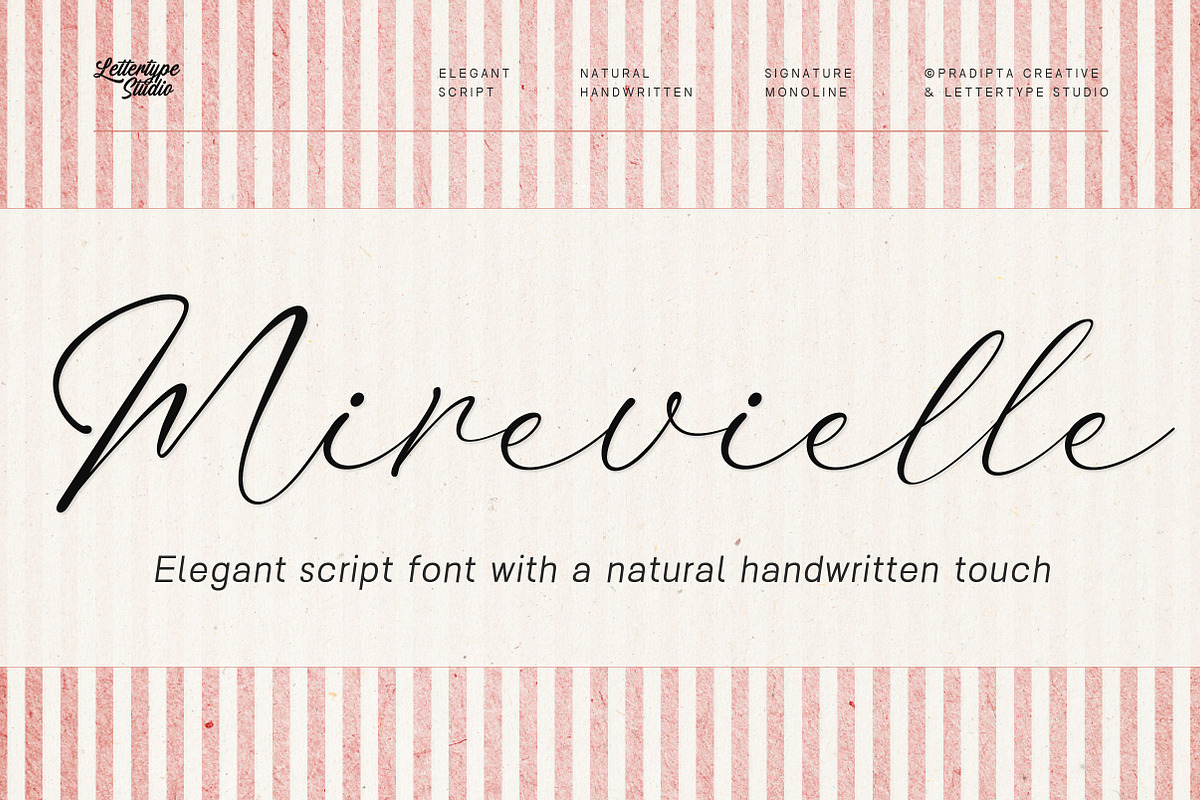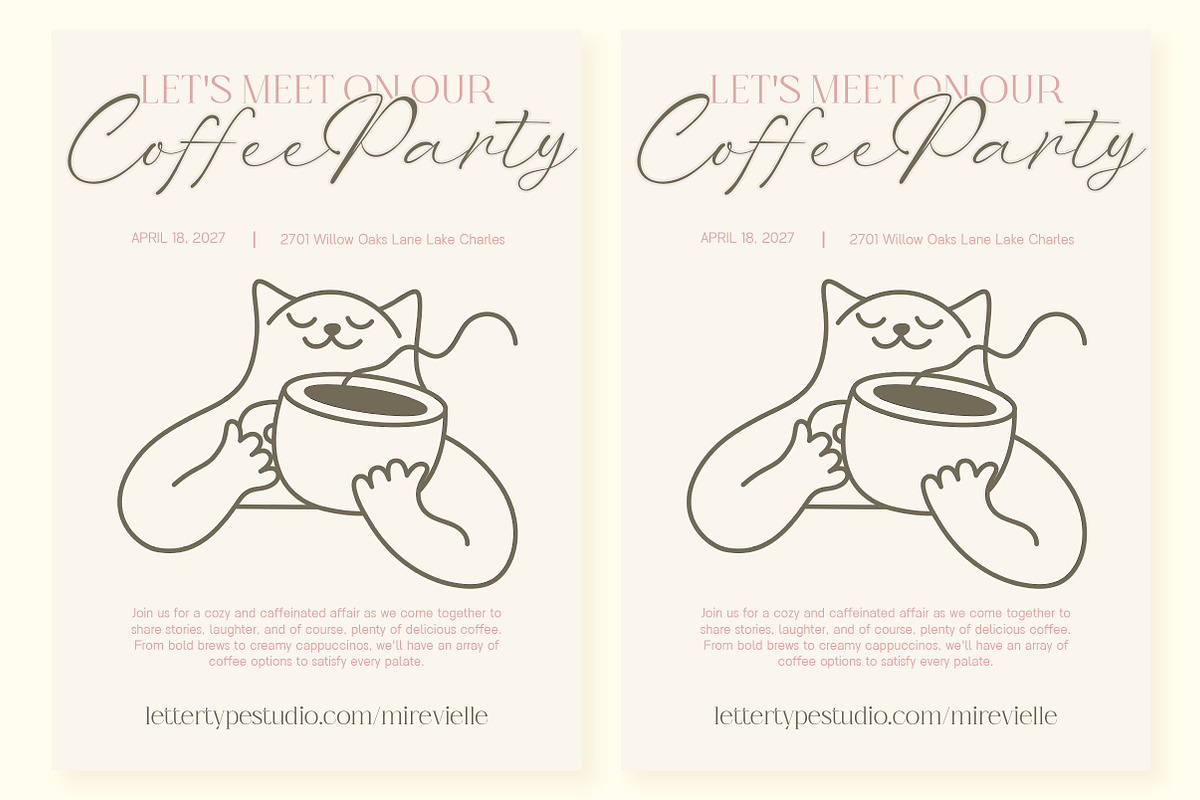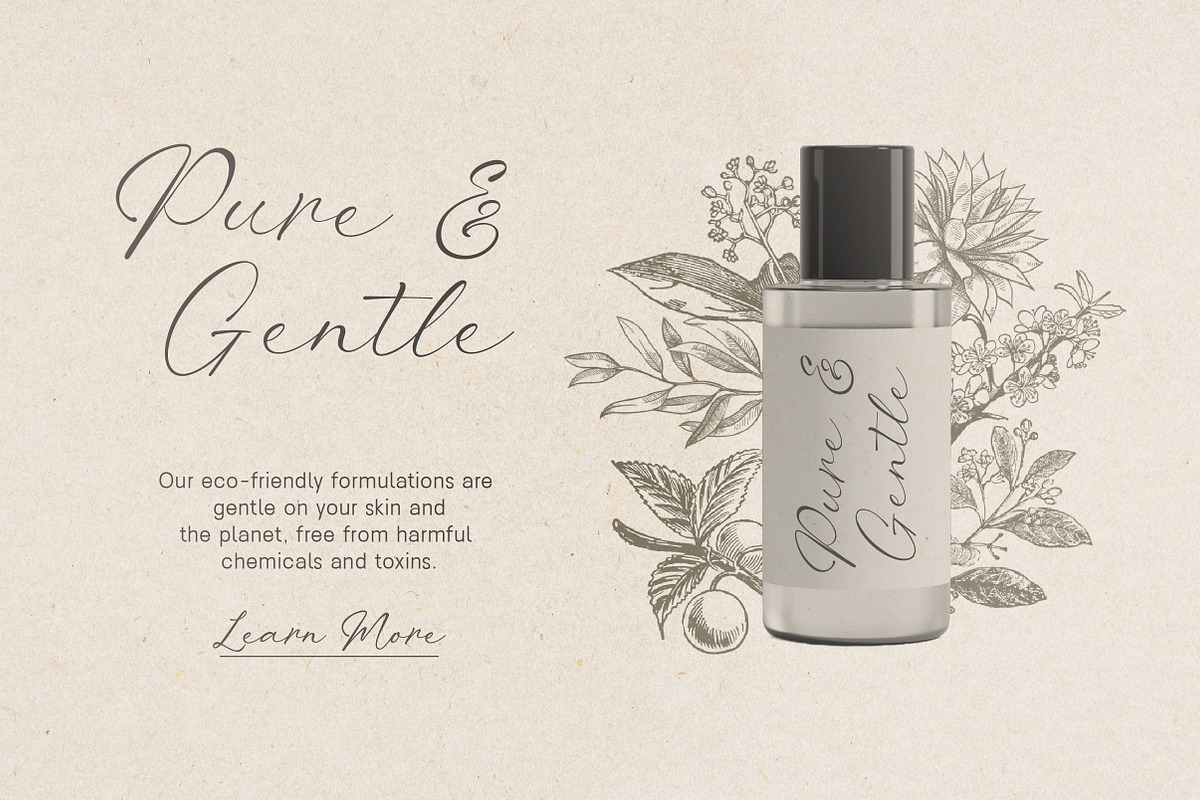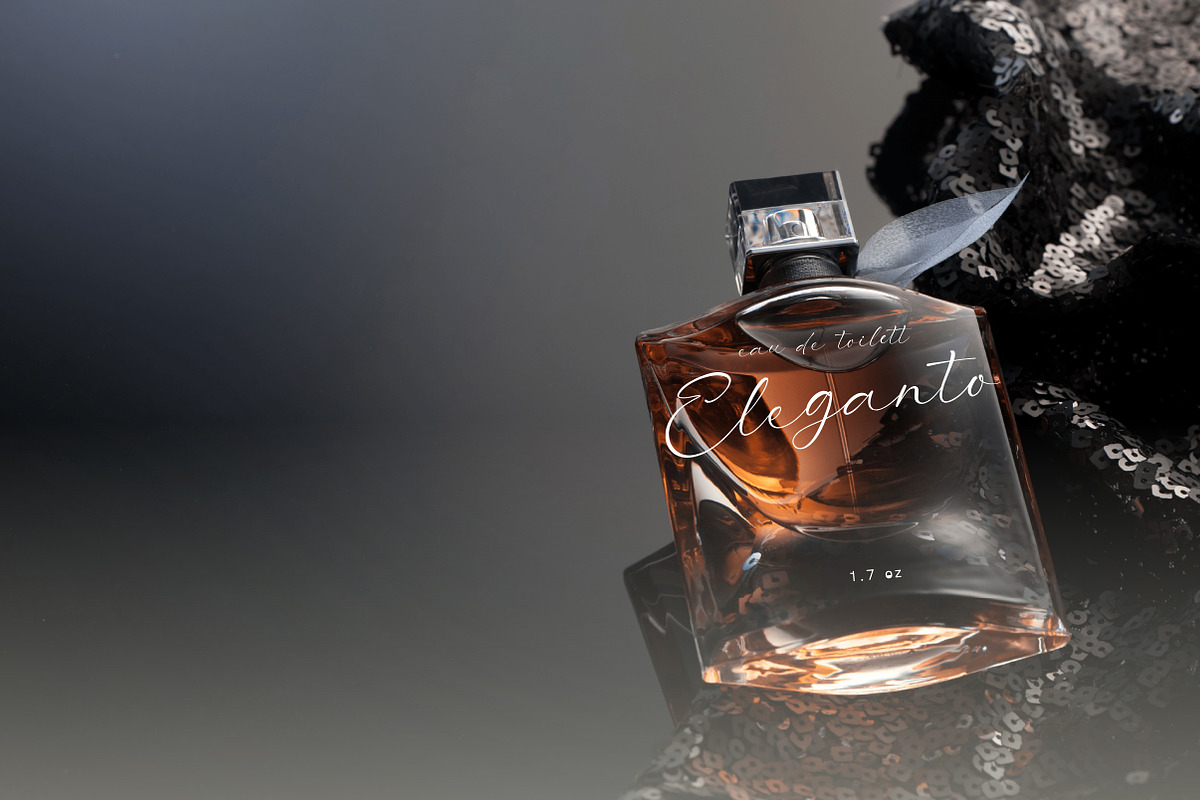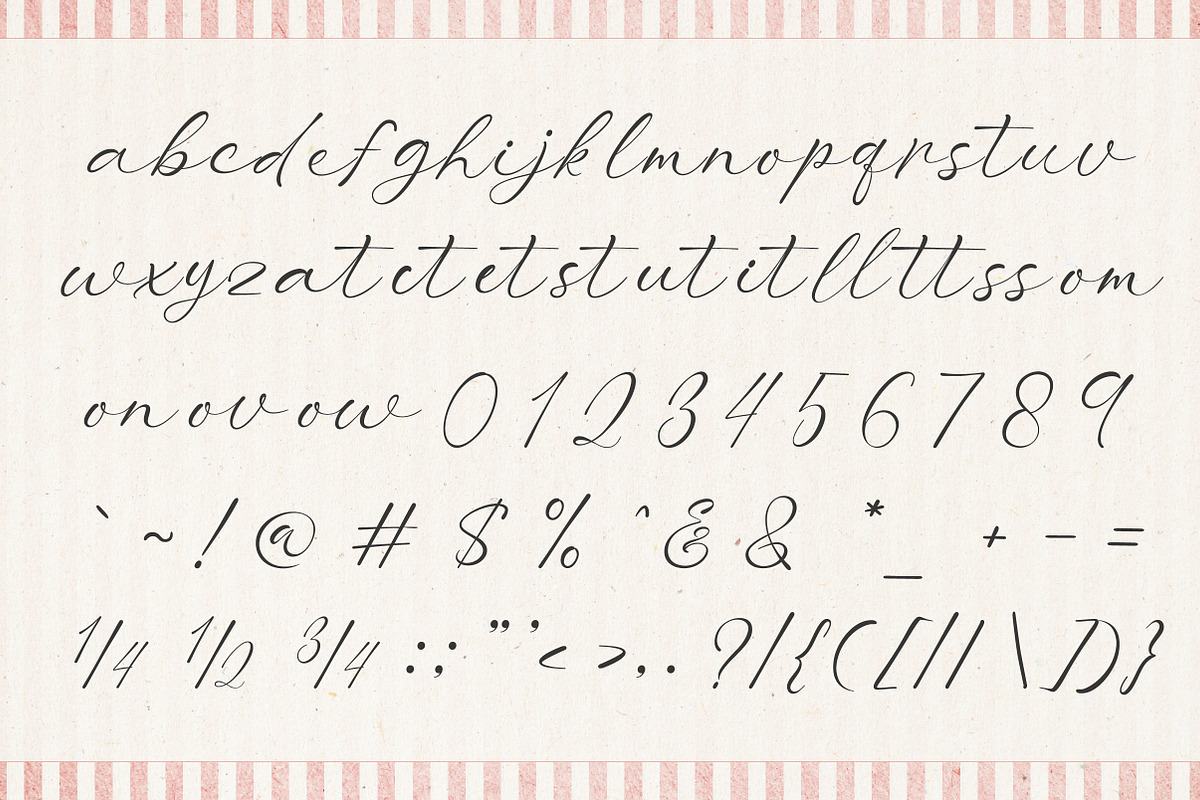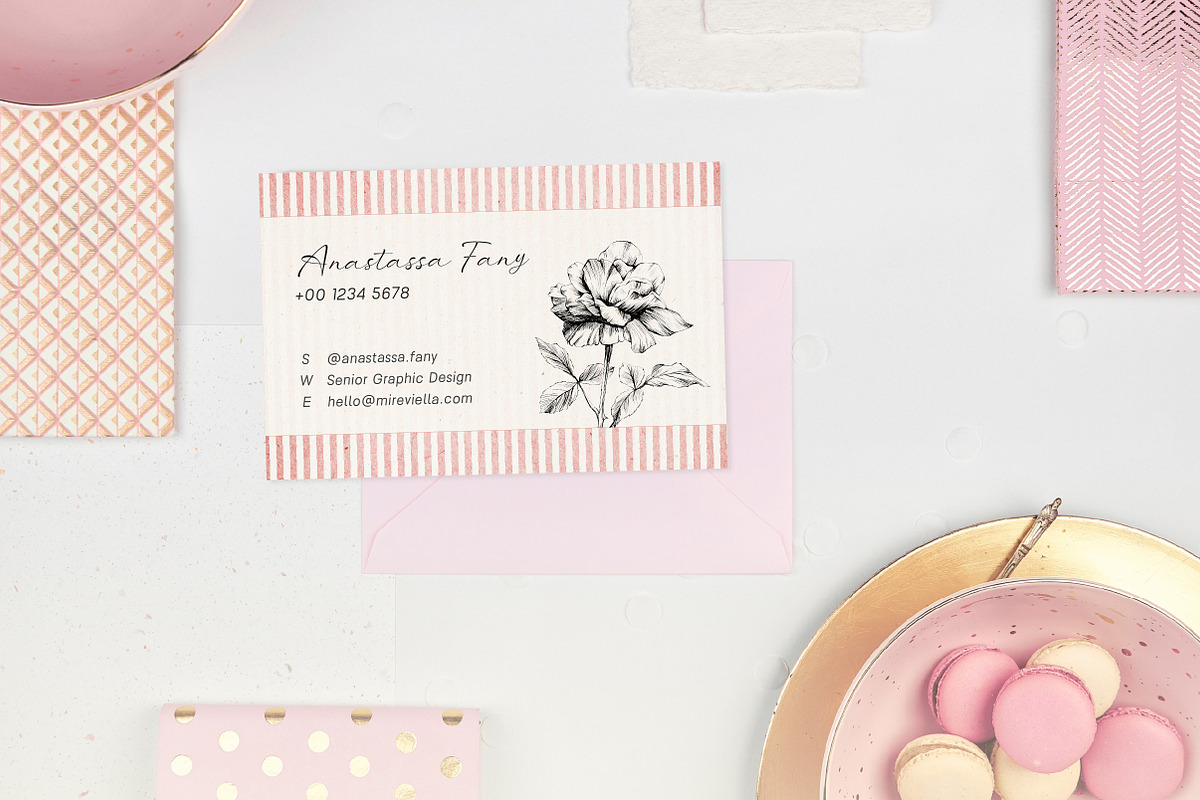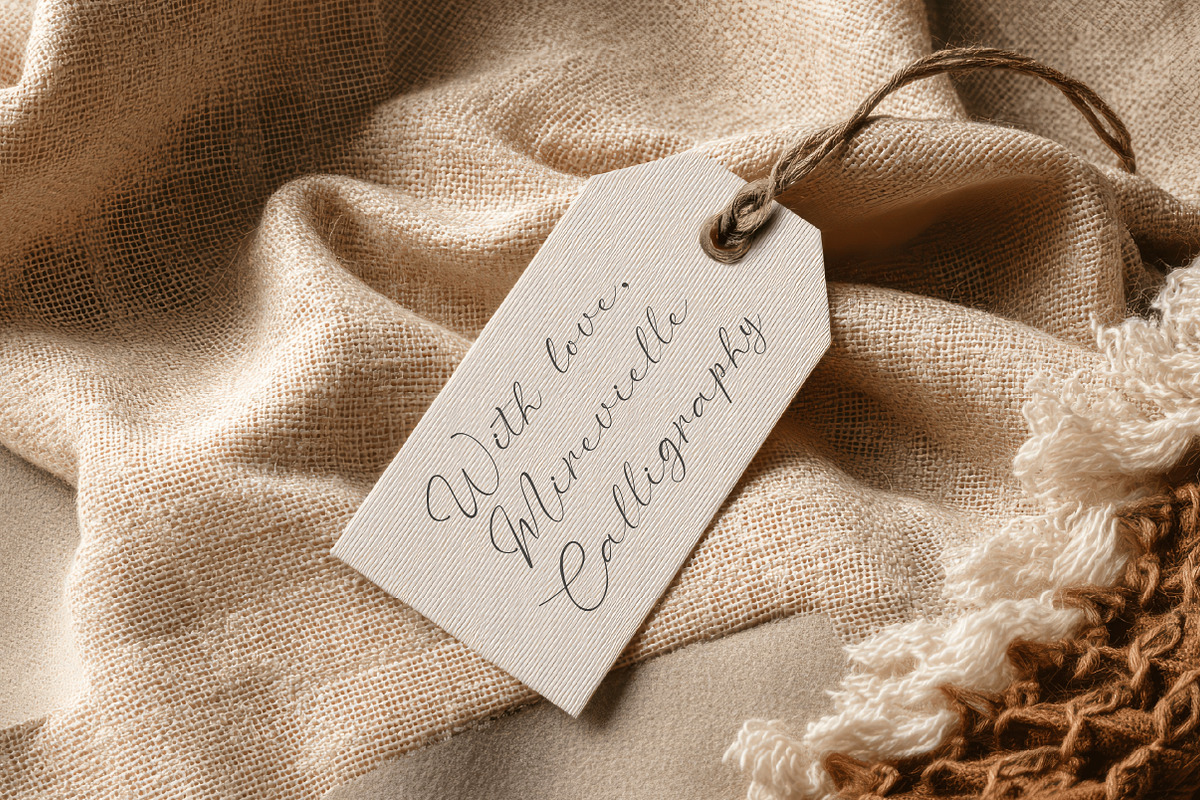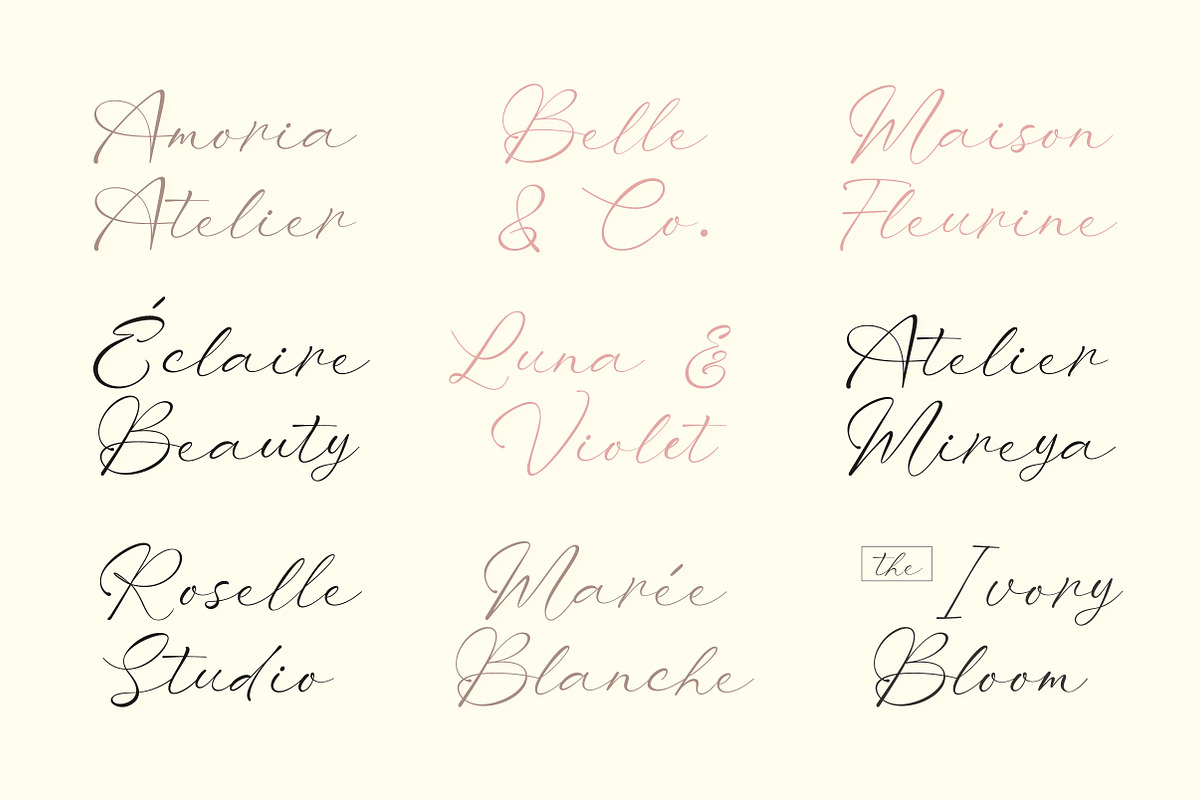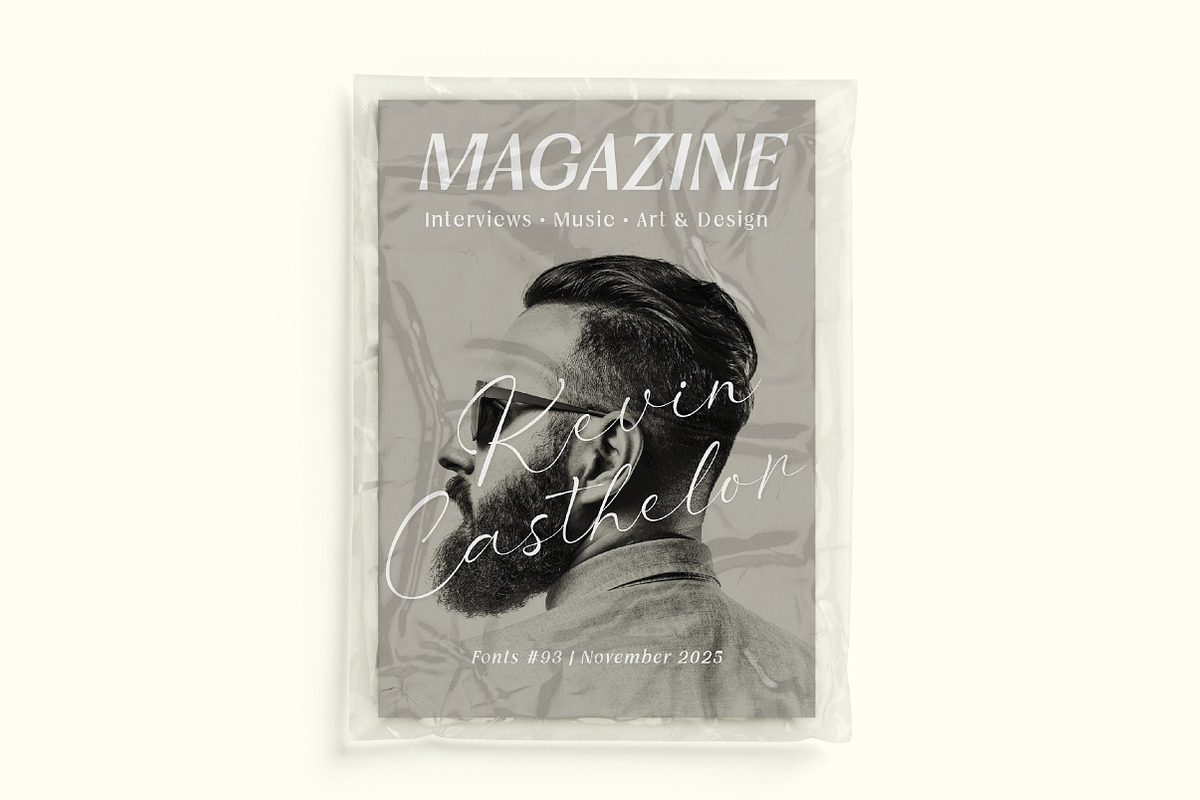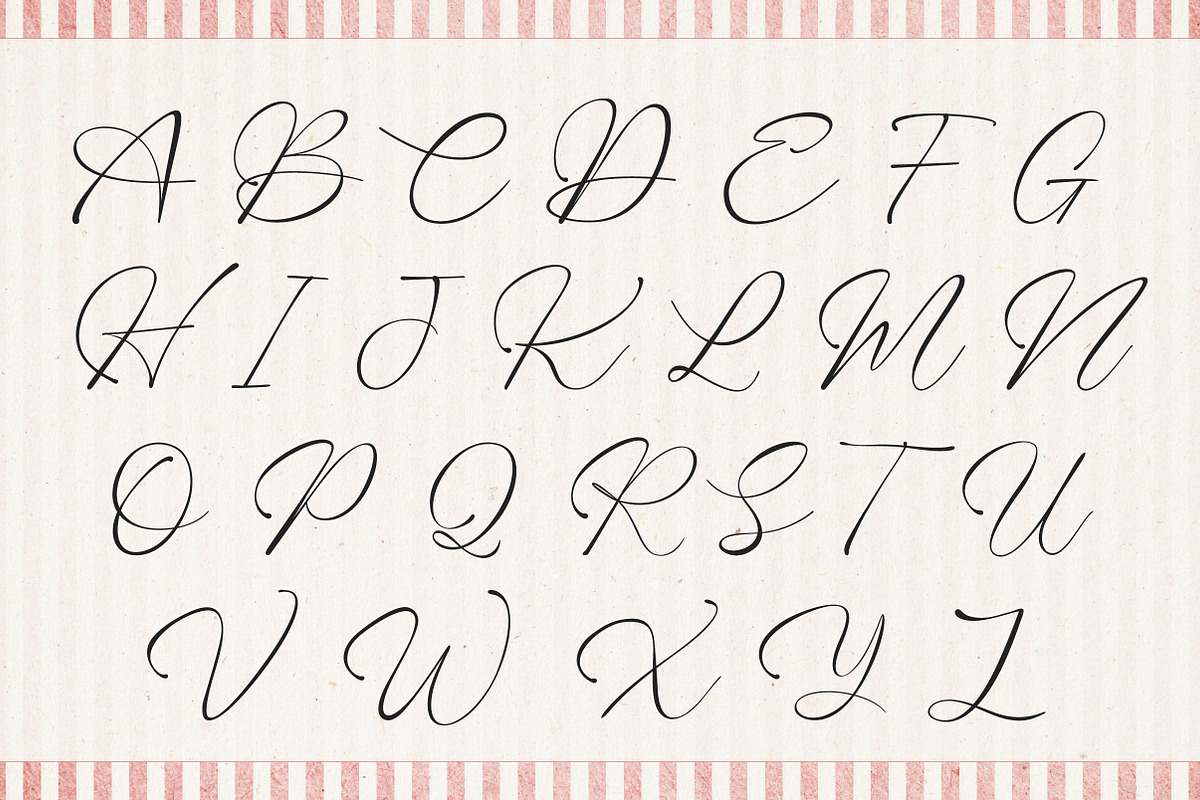
Mirevielle — Elegant Branding Script
Mirevielle is a handcrafted signature script made for elegant branding and high-end design. Every glyph was drawn with a delicate rhythm — smooth, natural, and full of character. The flow of each letter feels like a personal signature, balancing classic grace and modern sophistication. From “tt” ligatures that dance effortlessly to elongated loops in “L”, “B”, and “R”, Mirevielle celebrates beauty in subtle detail.
Designed especially for beauty logos, packaging, and editorial titles, Mirevielle delivers that premium look that feels human, not mechanical. The thin ink-like strokes, graceful alternates, and flowing connections give a soft, luxurious presence on every canvas — from business cards to perfume labels. Includes stylistic sets, swashes, and multilingual support for creative flexibility.
Mirevielle Features:
1 Styles (Regular)
Signature-smooth connection system — delivers effortless natural strokes.
Standart Ligatures: ff, fi, fl, ffi, ffl
Discretionary Ligatures set from at, ct, et, st, ut, it, ll, tt, ss, om, on, ov, ow + ampersand alternates
464 Glyphs Total
260+ Languages Supported
Beauty & fashion logos
Luxury product packaging
Editorial and magazine mastheads
Perfume and skincare branding
Minimal stationery design
Signature-style branding & photography watermark